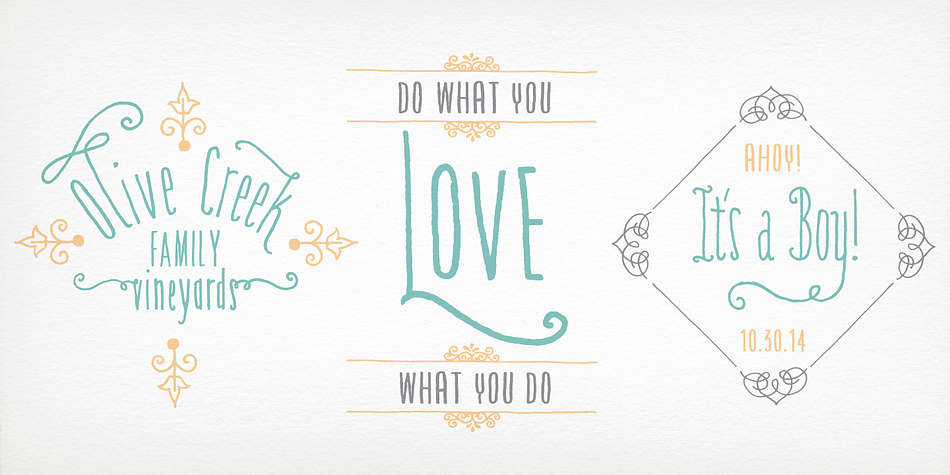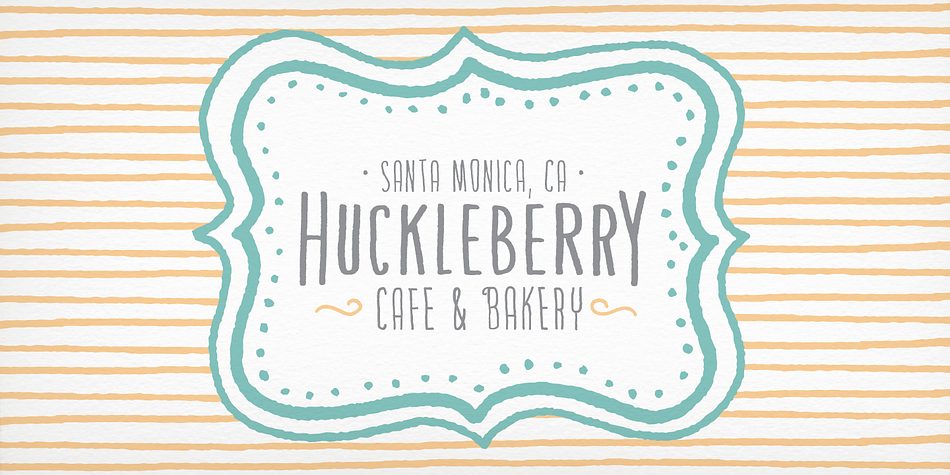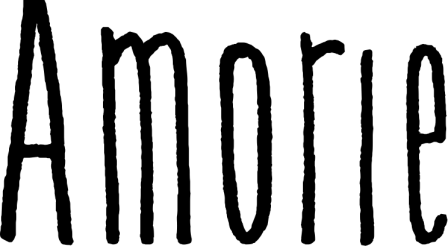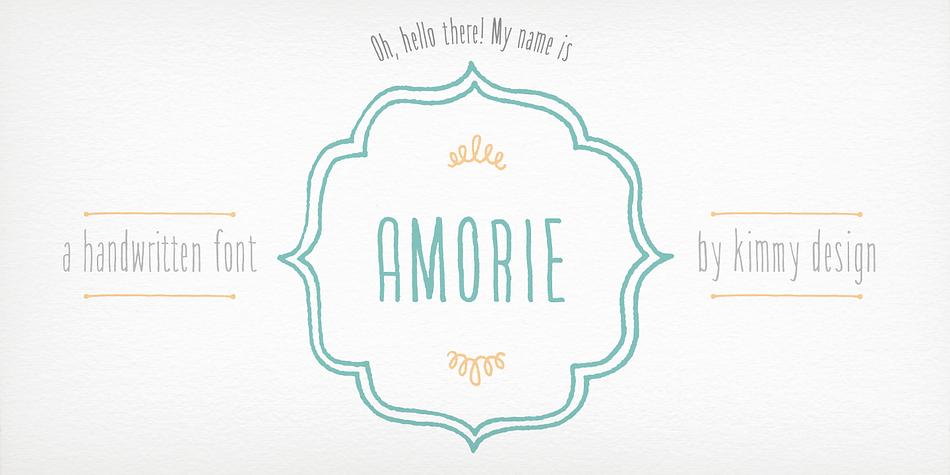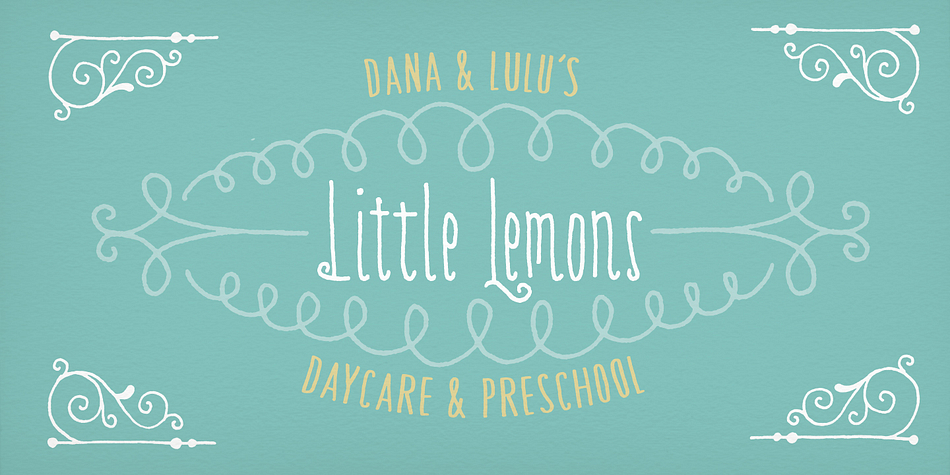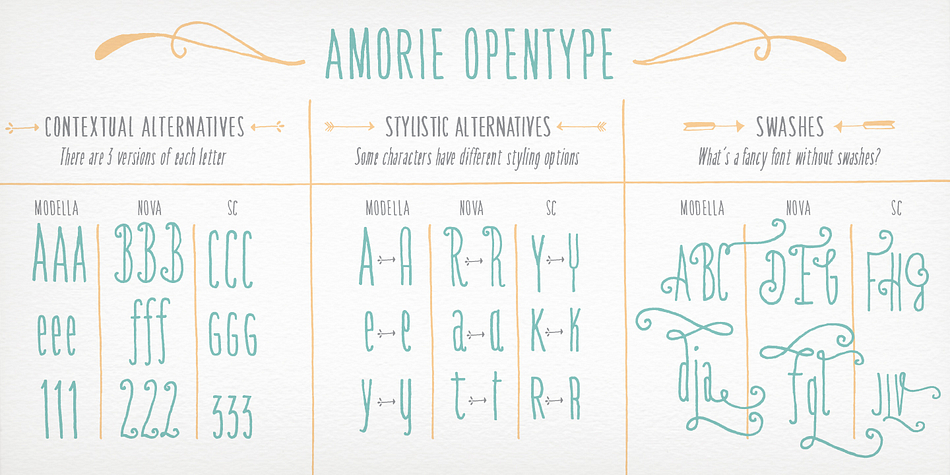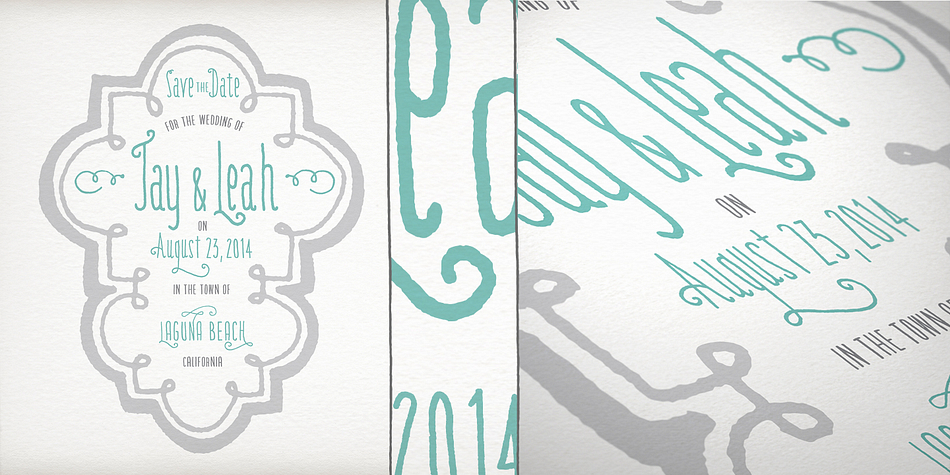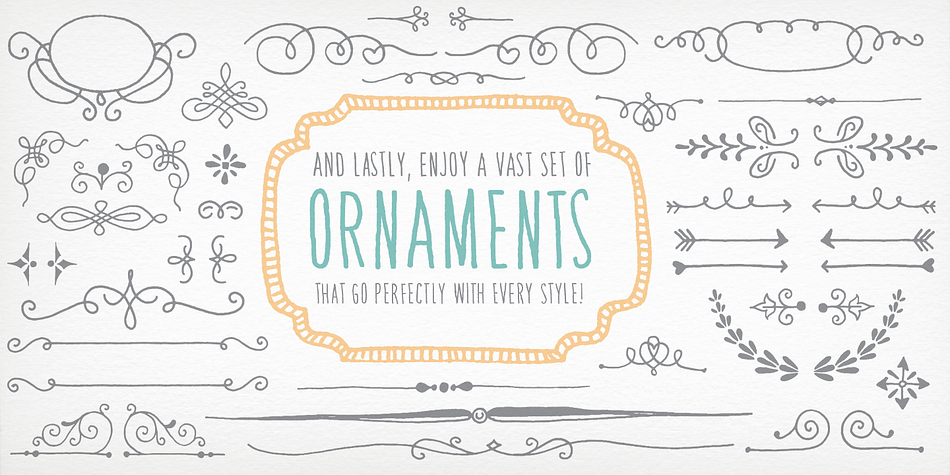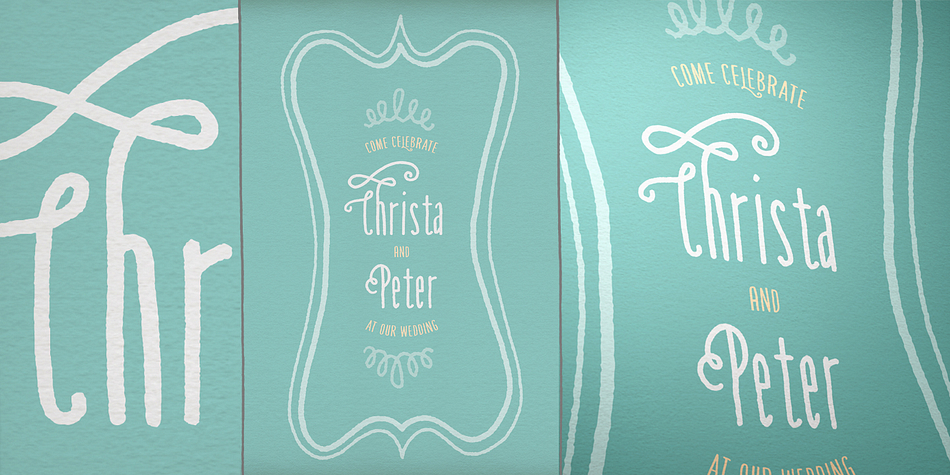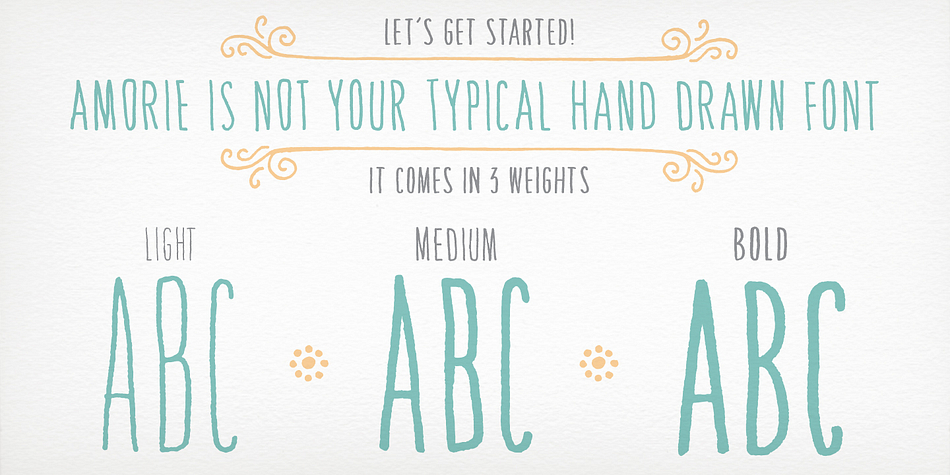
Amorie is a dingbat, hand drawn and hand display font family. This typeface has twenty-two styles and was published by Kimmy Design.
Amorie is a tall and skinny hand drawn font. It comes in various weight and styles, and with an array of opentype options. Built to appear completely hand crafted, different designers could produce completely different results, selecting either Modella (classic and chic), Nova (fun and fancy) or SC (Small Caps and all business.) Each style comes in light, medium and bold and has an accompanying italics version.
Opentype for this font includes Contextual Alternatives, which produces three versions of each character, making sure no two identical letters appear next to each other thus giving your design a fully authentic look. There are also stylistic alternatives, which offer different style to a select few characters, including capital letters: A, K, R, Q, Y and lowercase letters: a, e, k, t, y. Lastly, is a large set of swashes, 3 for each letter they accompany. For the most part this includes the whole uppercase alphabet as well as lower case letters with an ascender or descender.
Amorie includes a large set of graphic extras, including stylish frames, arrows, line breaks, corners, flourishes and more. The complete package gives you one unbeatable font family.